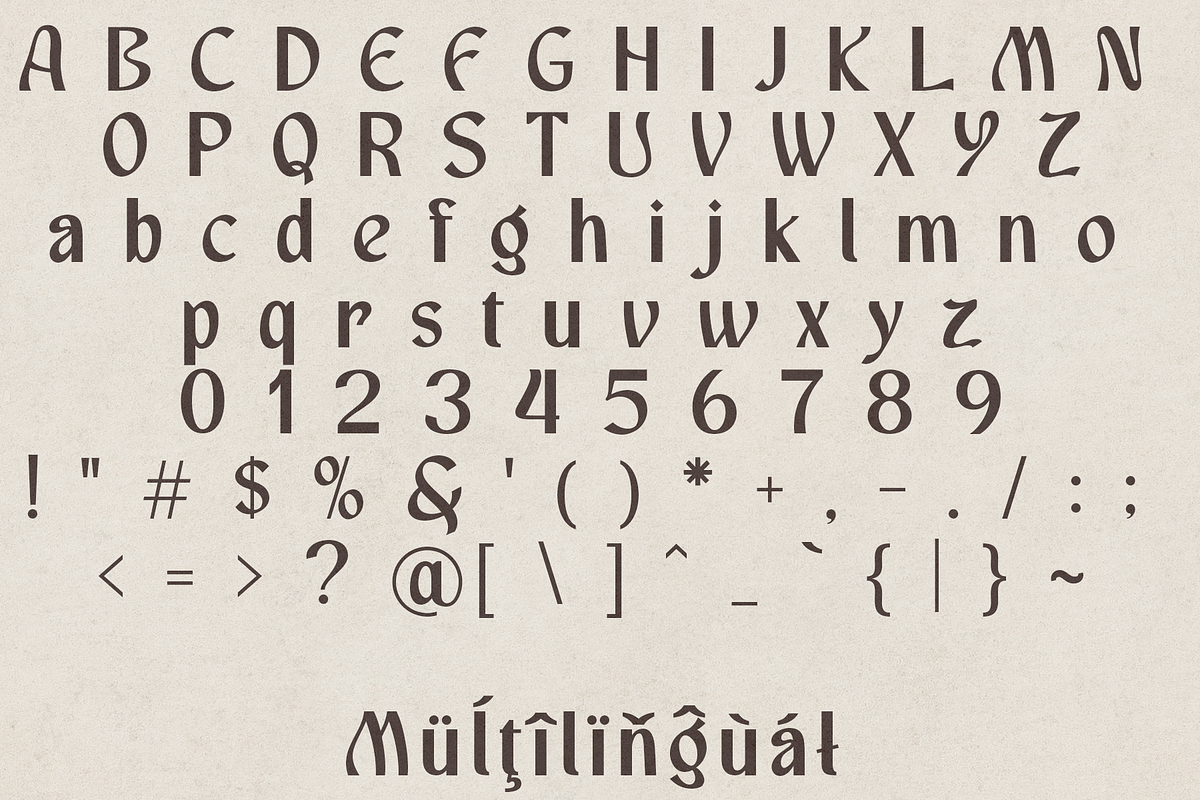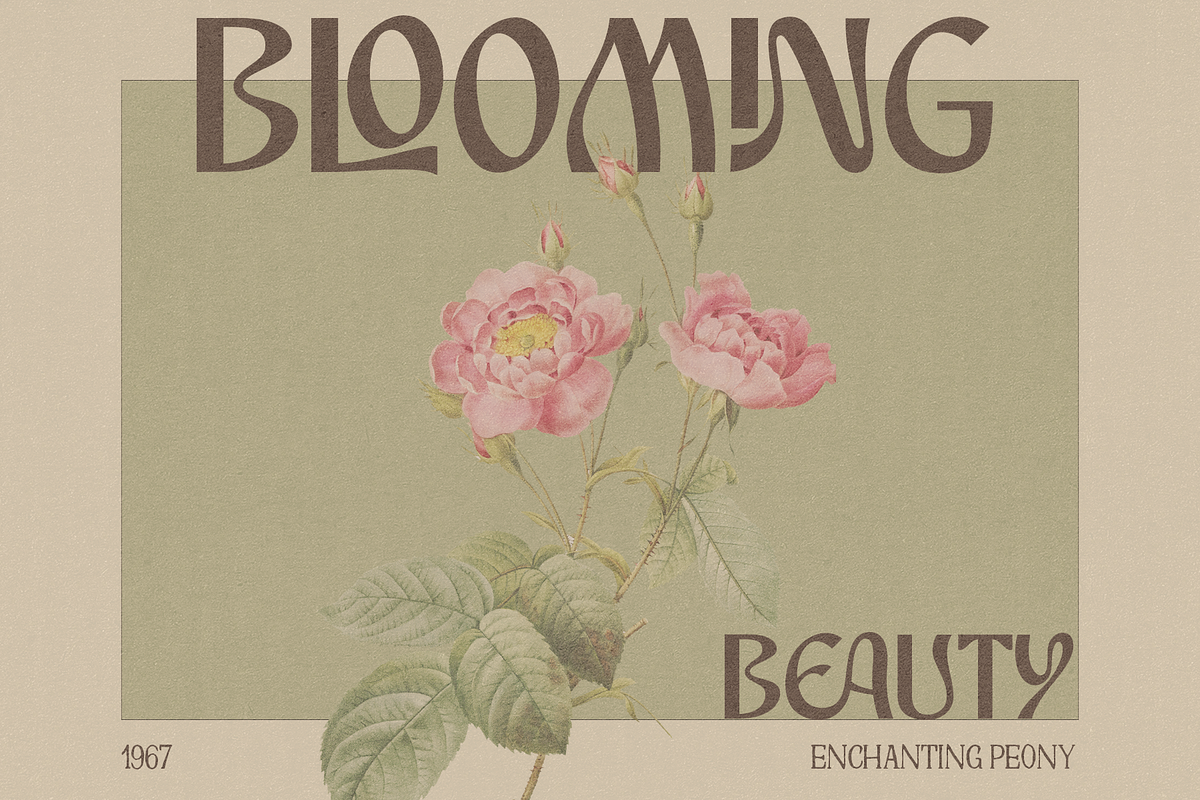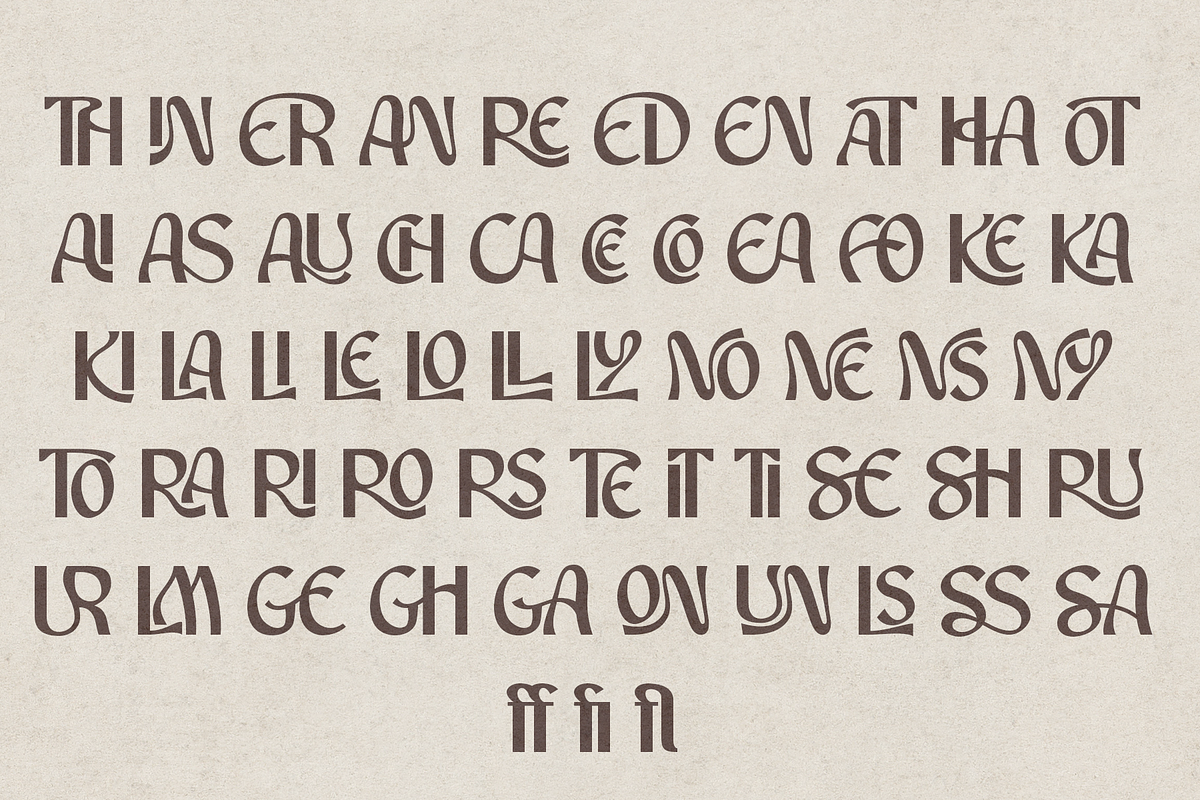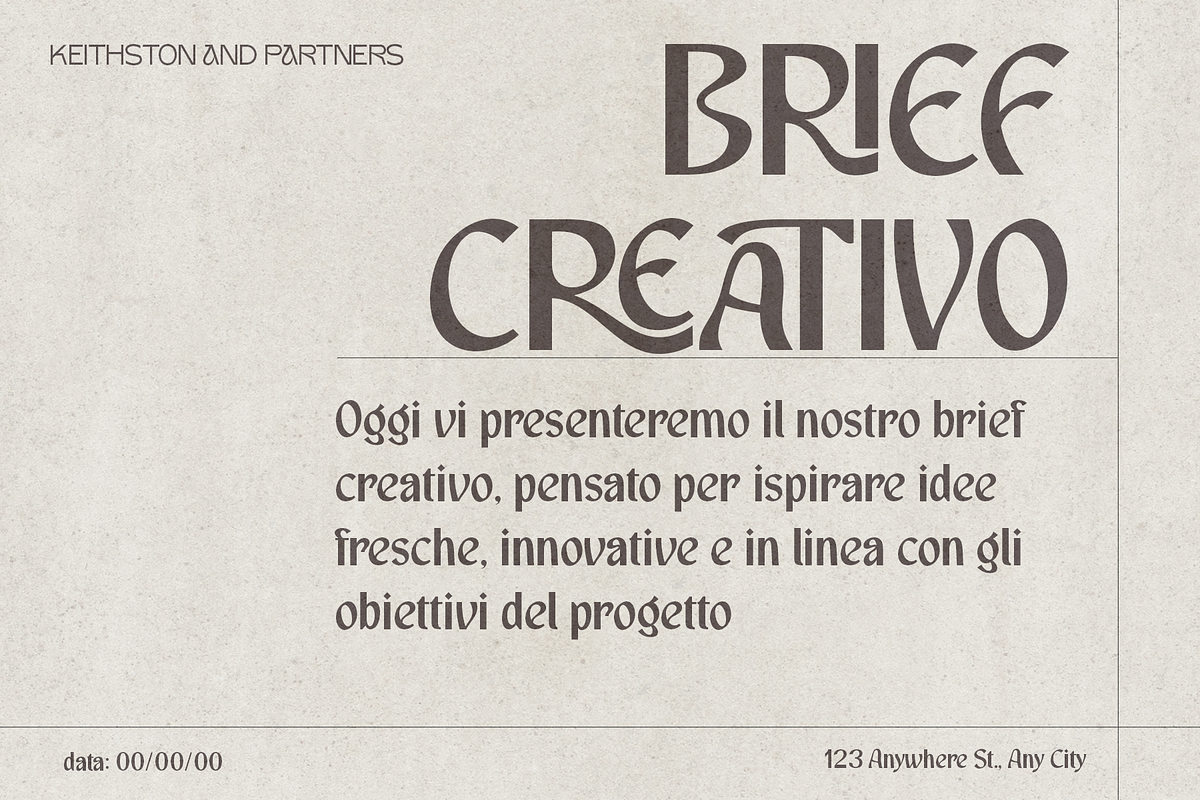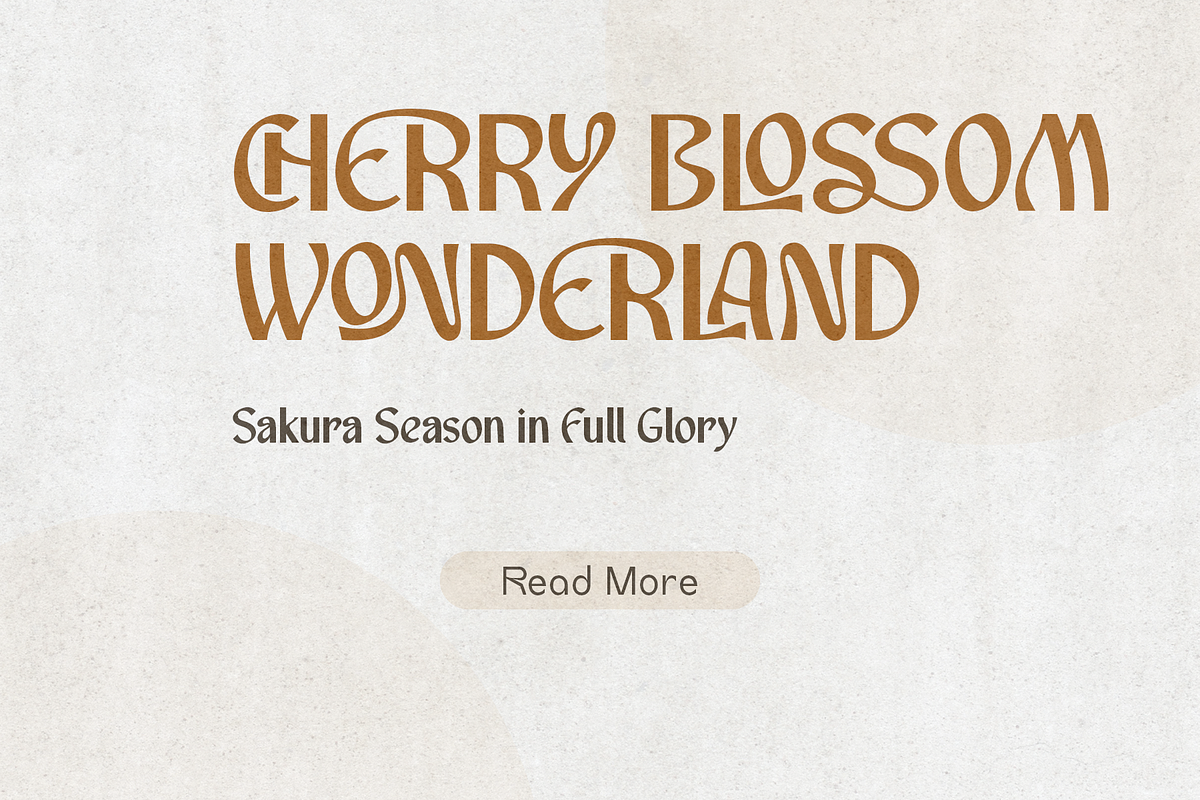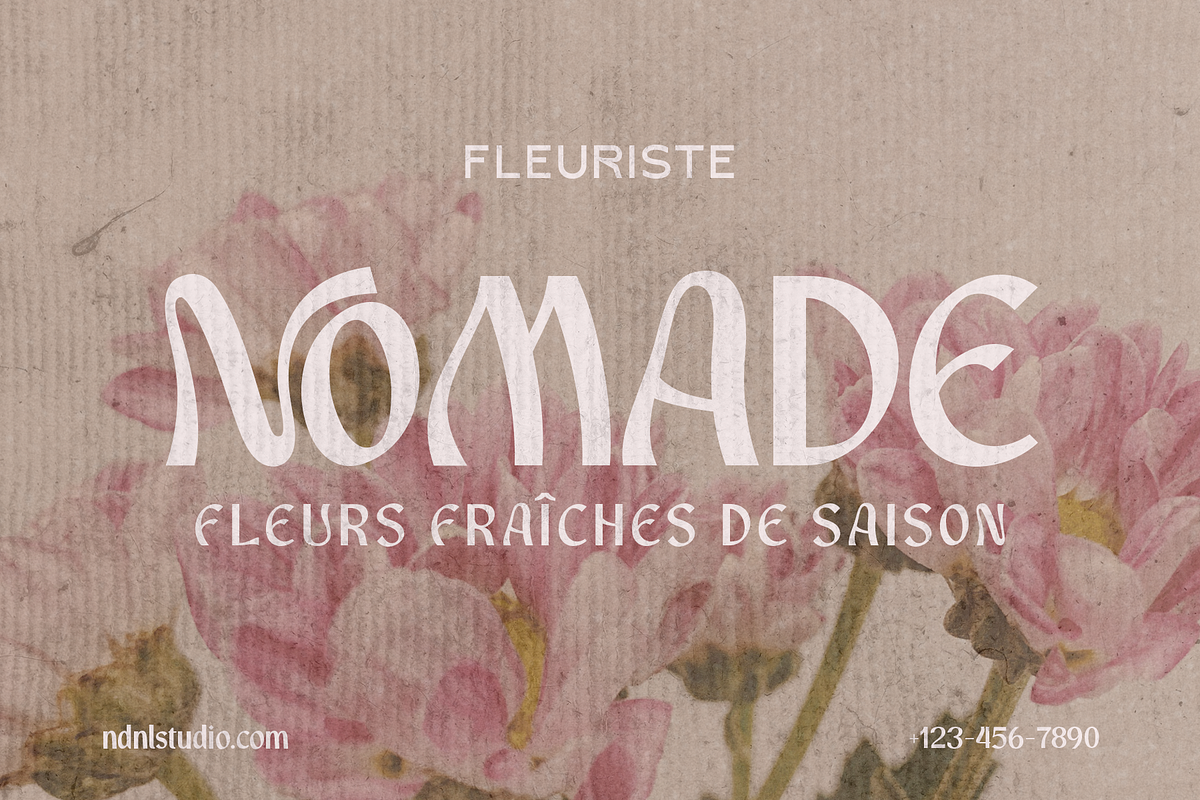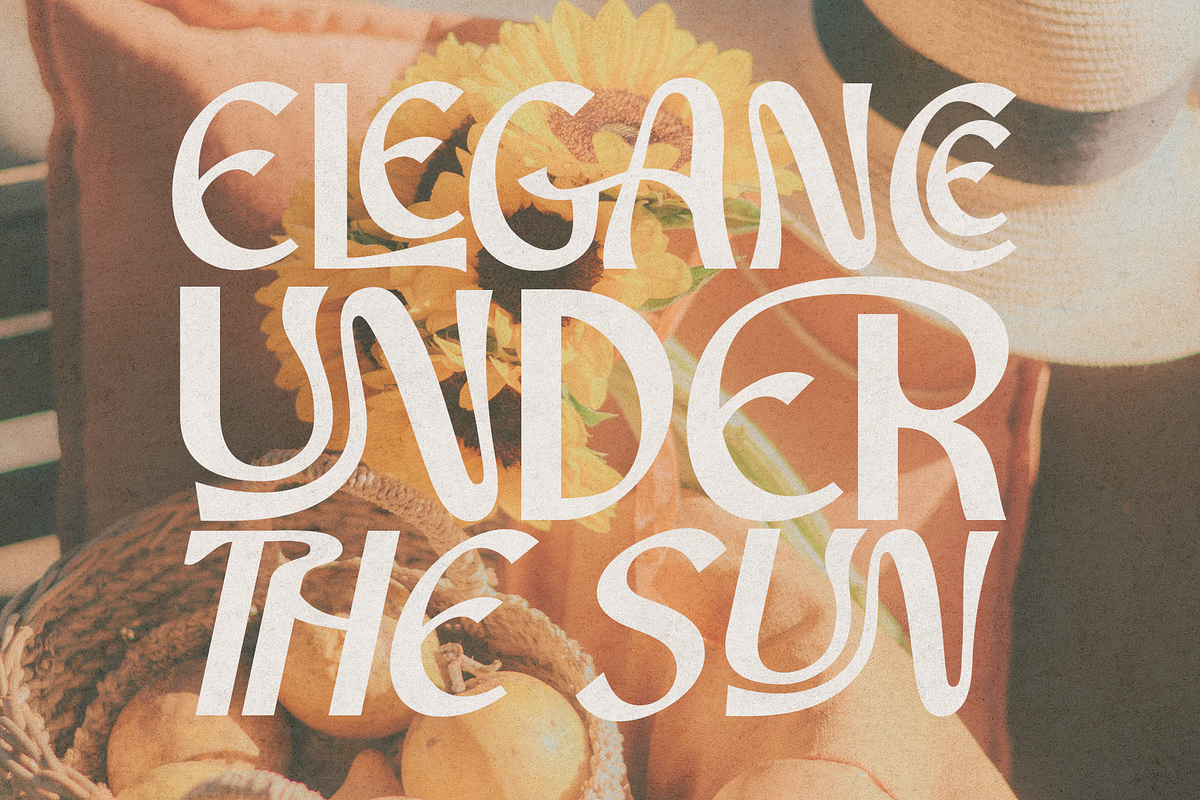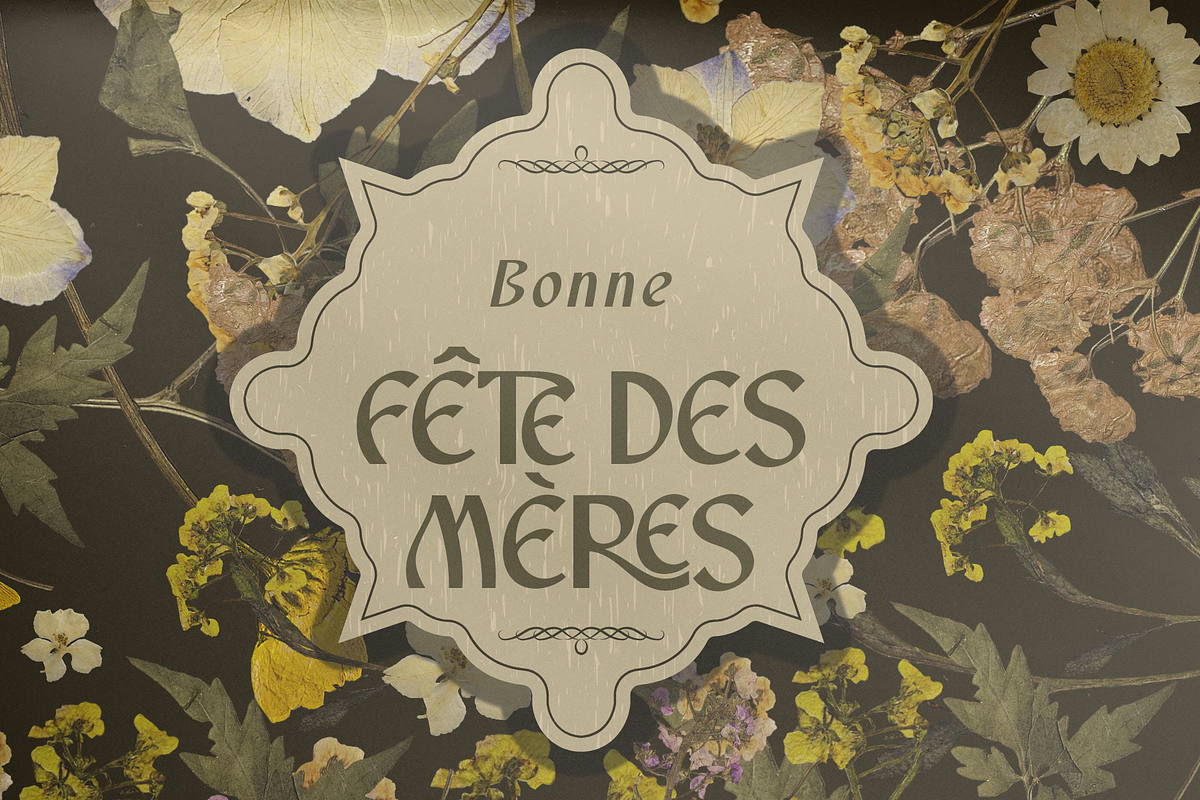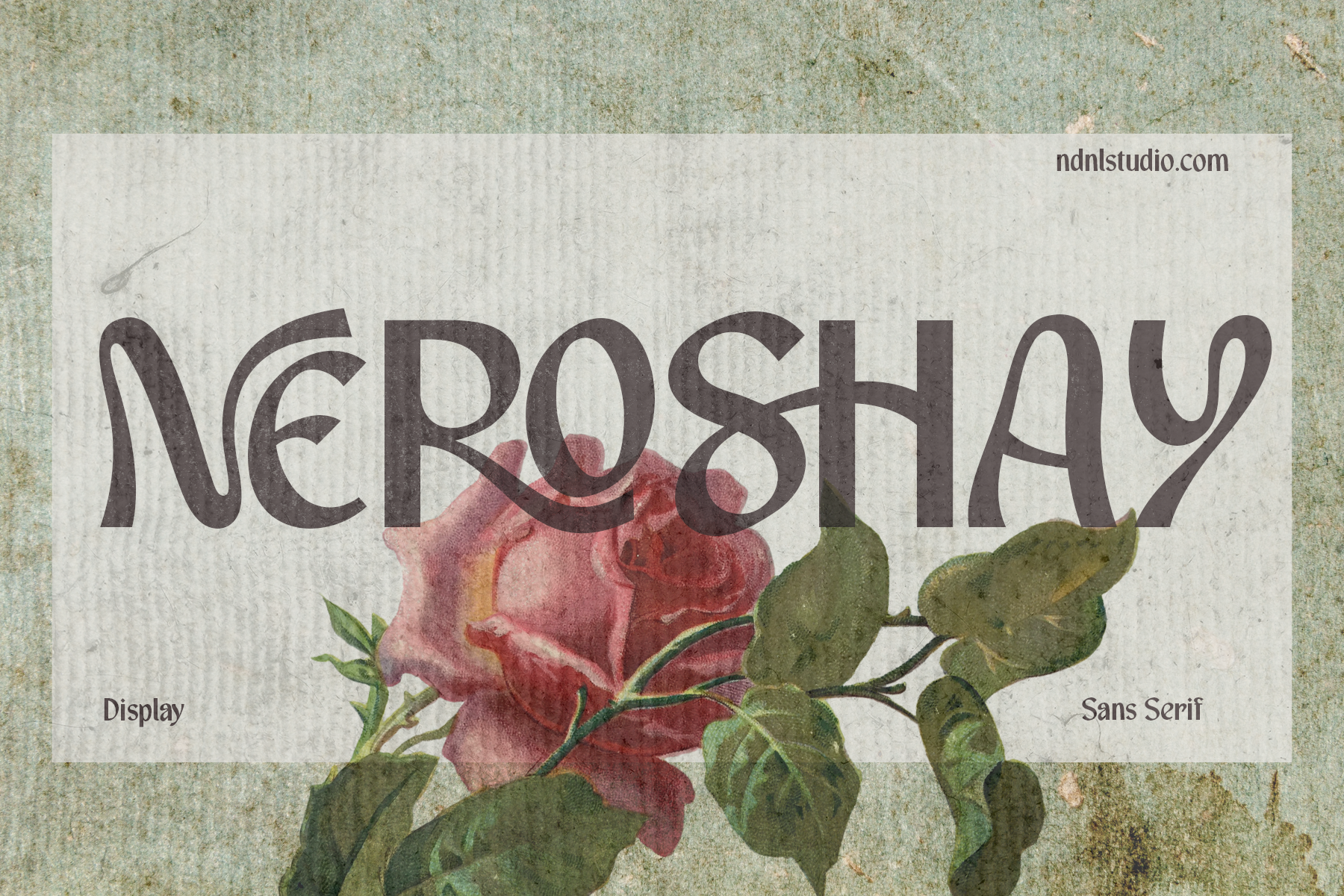
Neroshay – Sans Serif Font
Neroshay is a modern artistic display sans serif typeface, distinguished by its smooth curves and unique letter structure. Its design creates an elegant yet expressive feel, making it ideal for projects that require originality and strong visual appeal. Perfect for branding, logos, posters, headlines, product packaging, and editorial layouts, Neroshay blends vintage charm with contemporary style to bring a sophisticated and eye-catching presence to your designs.
– Character set A-Z
– Uppercase & Lowercase
– Numerals & Punctuation
– Accented Characters (West Europe)